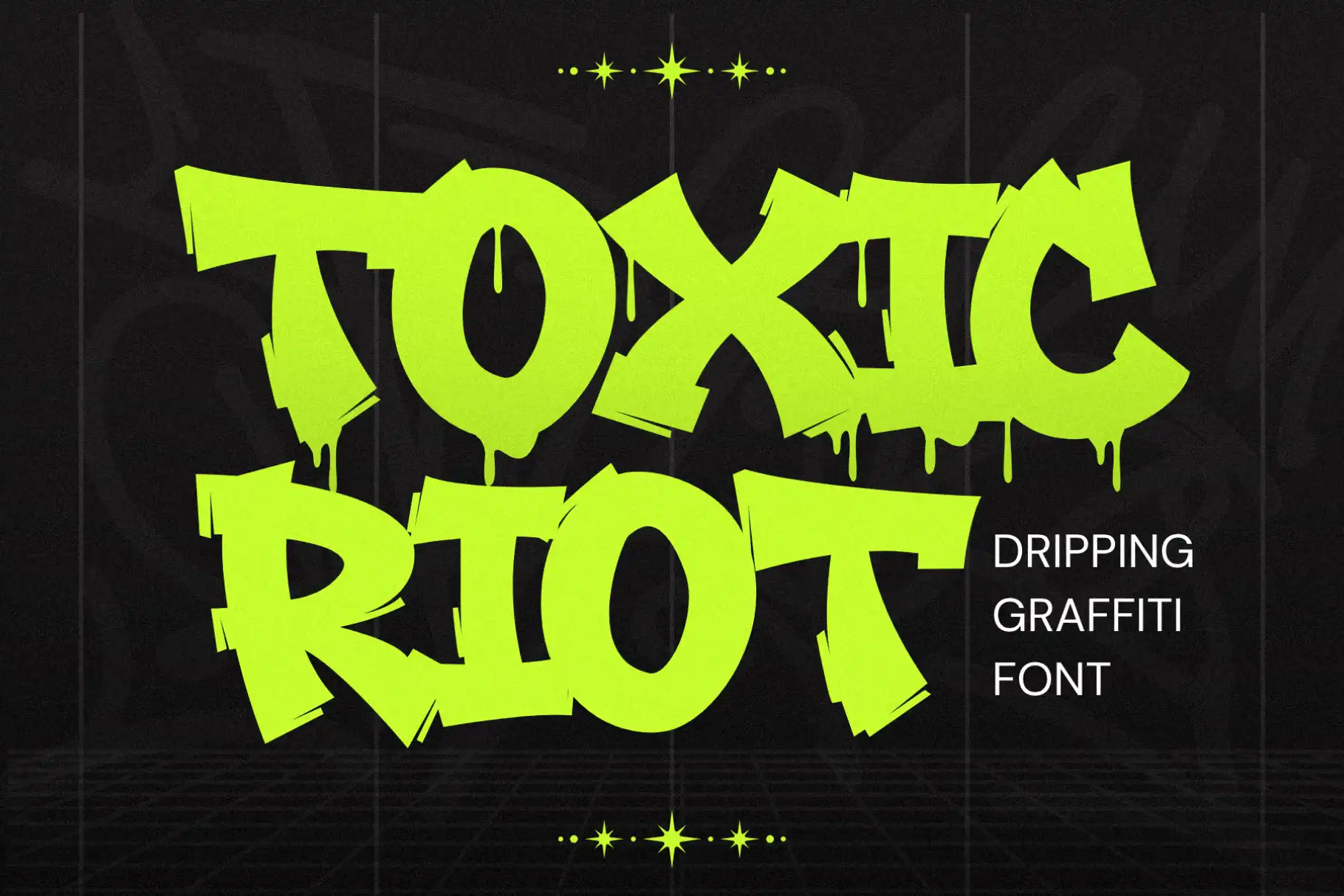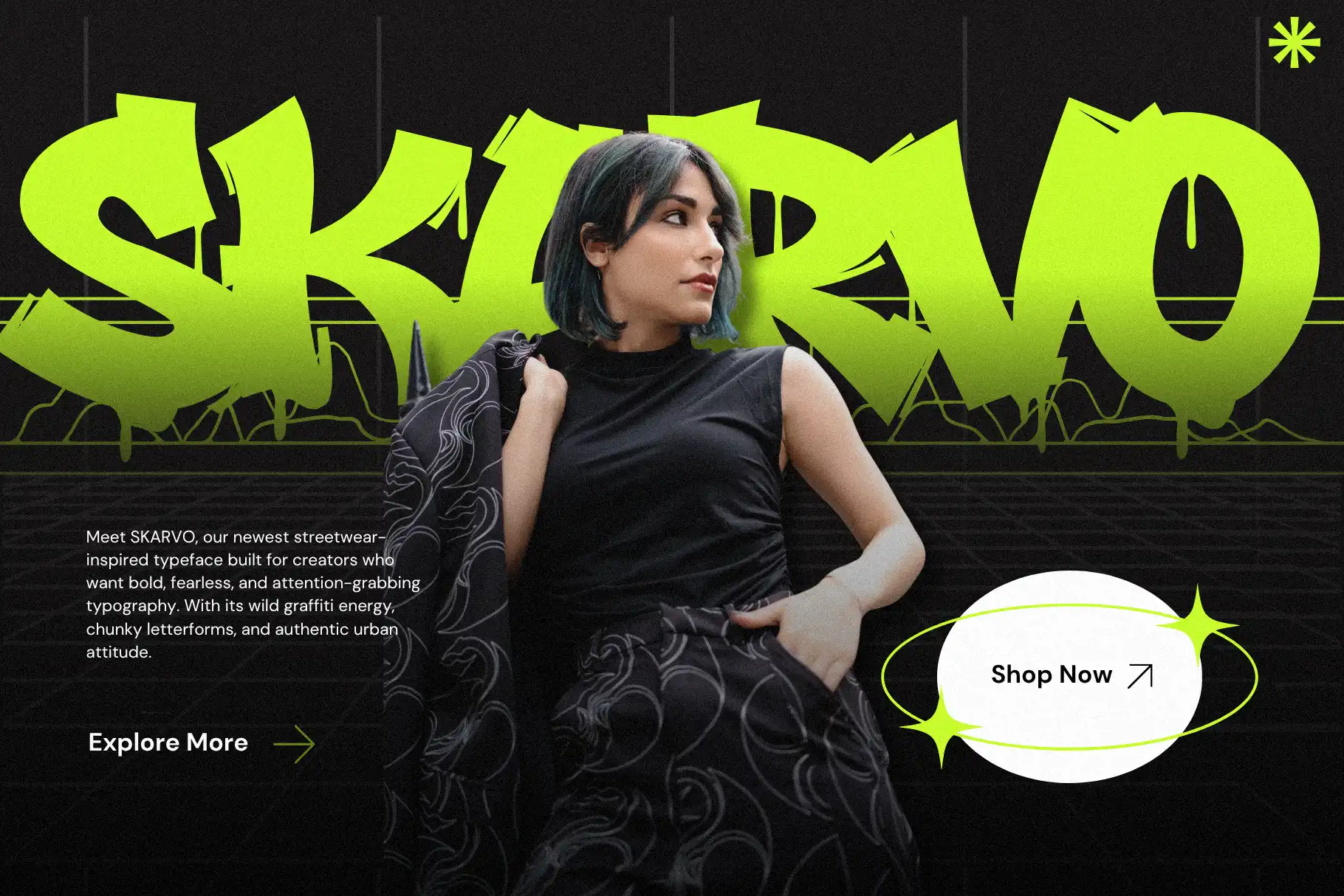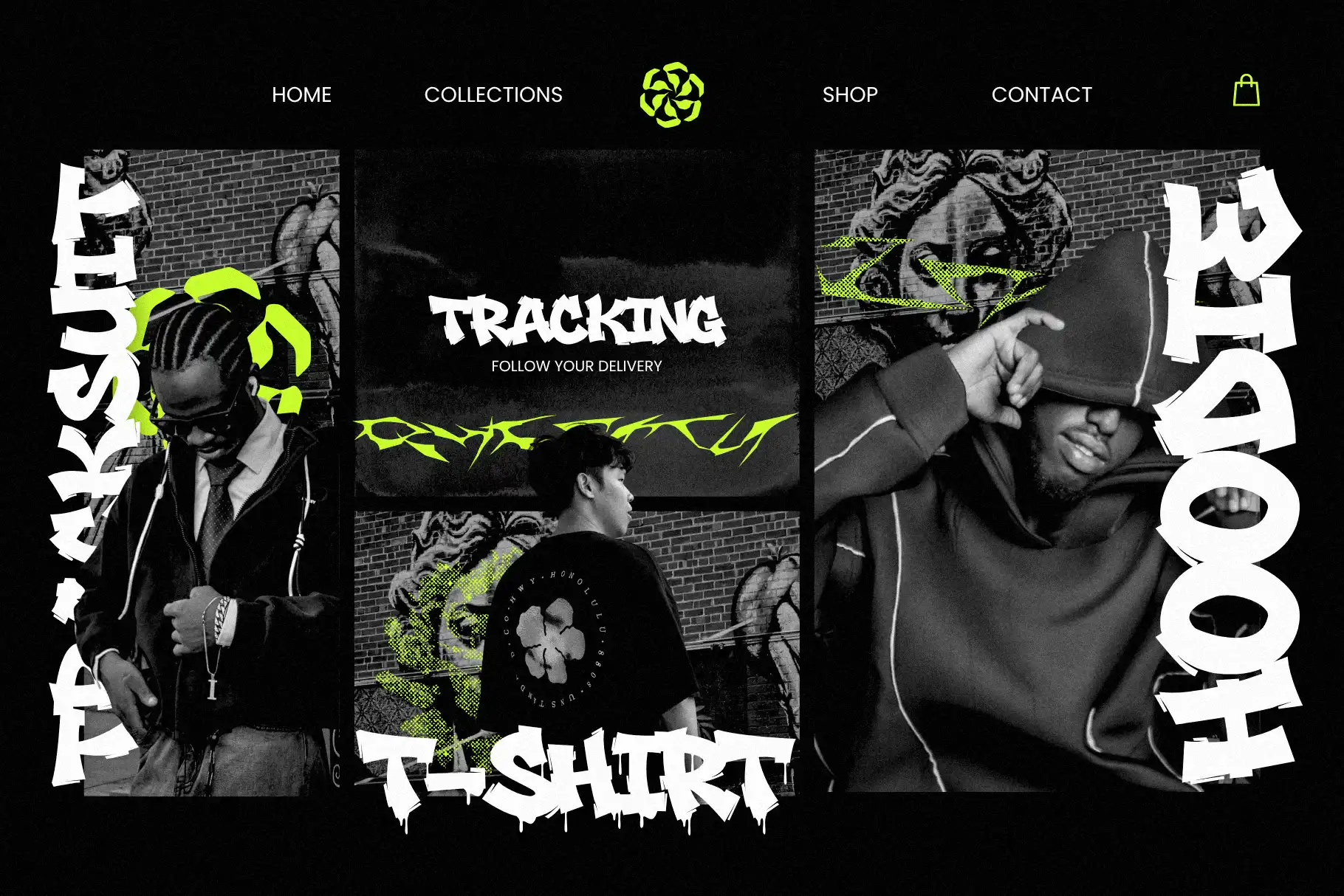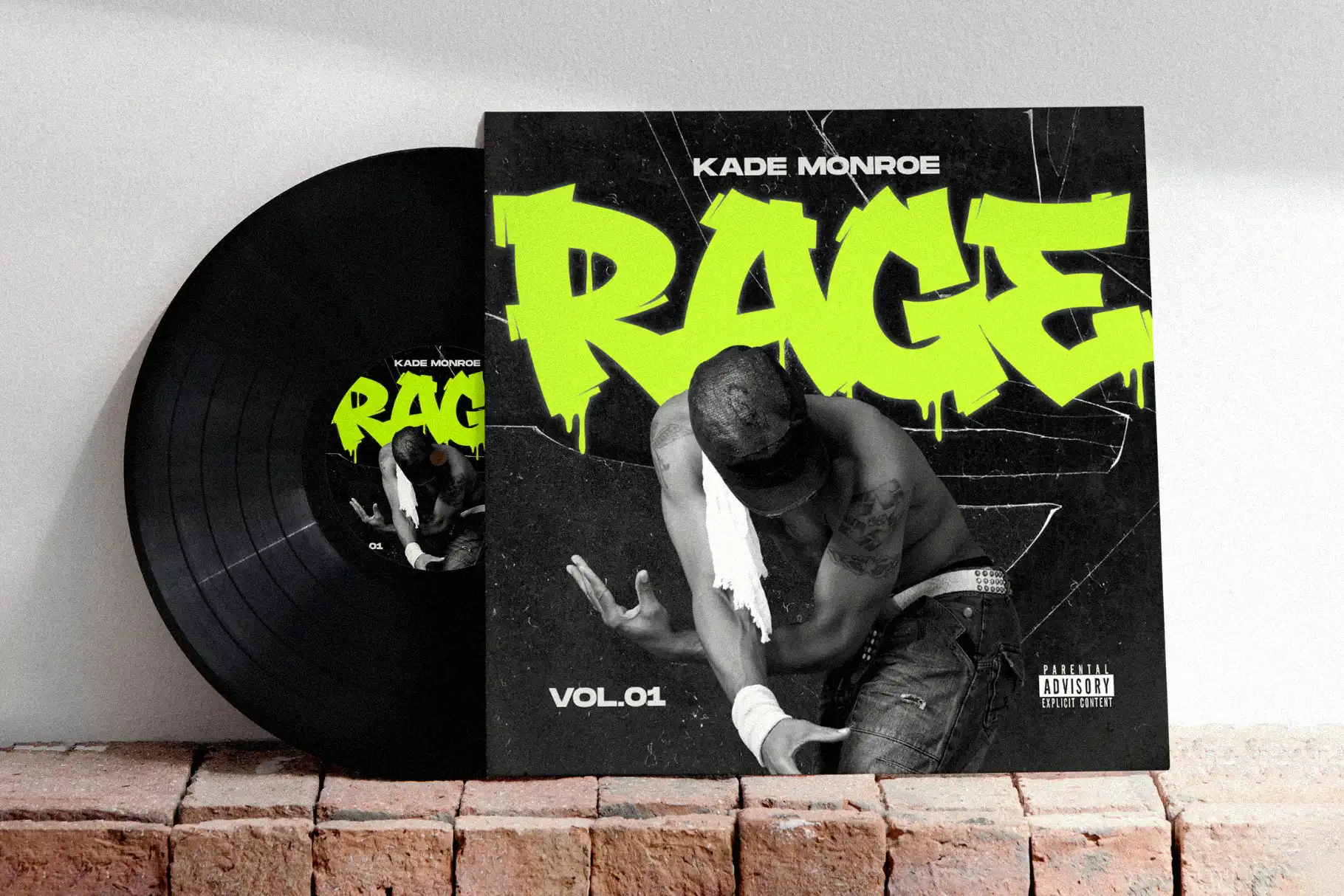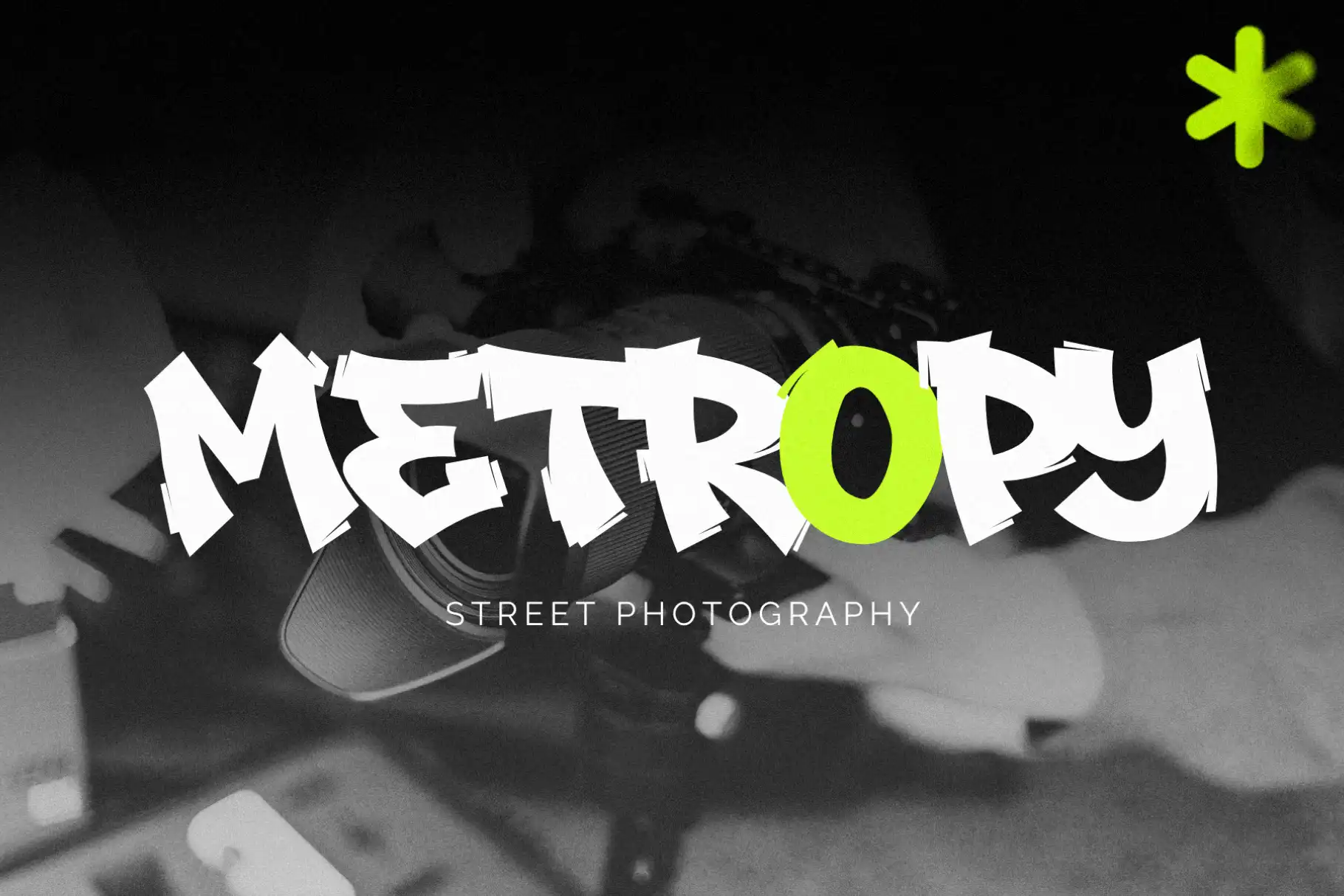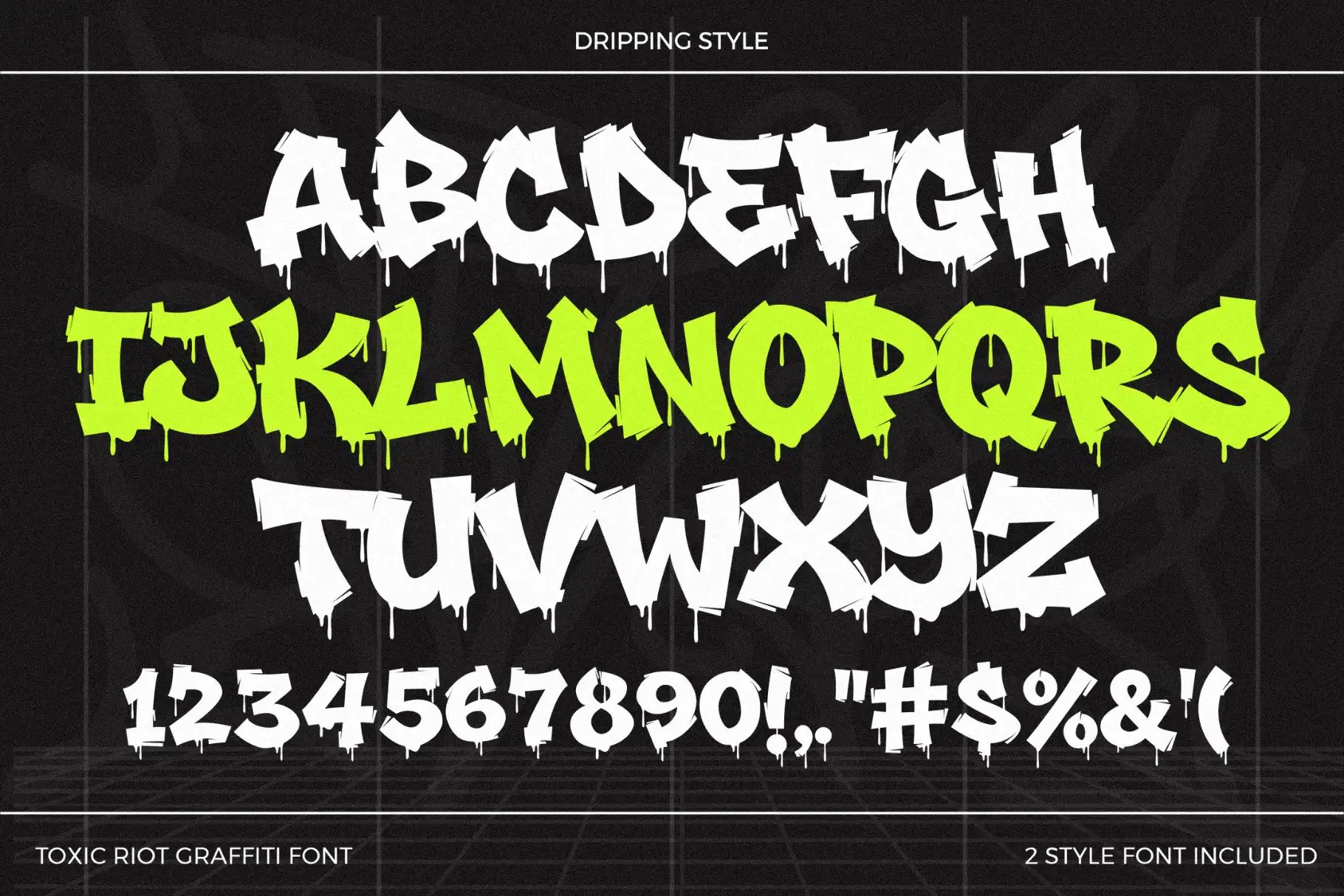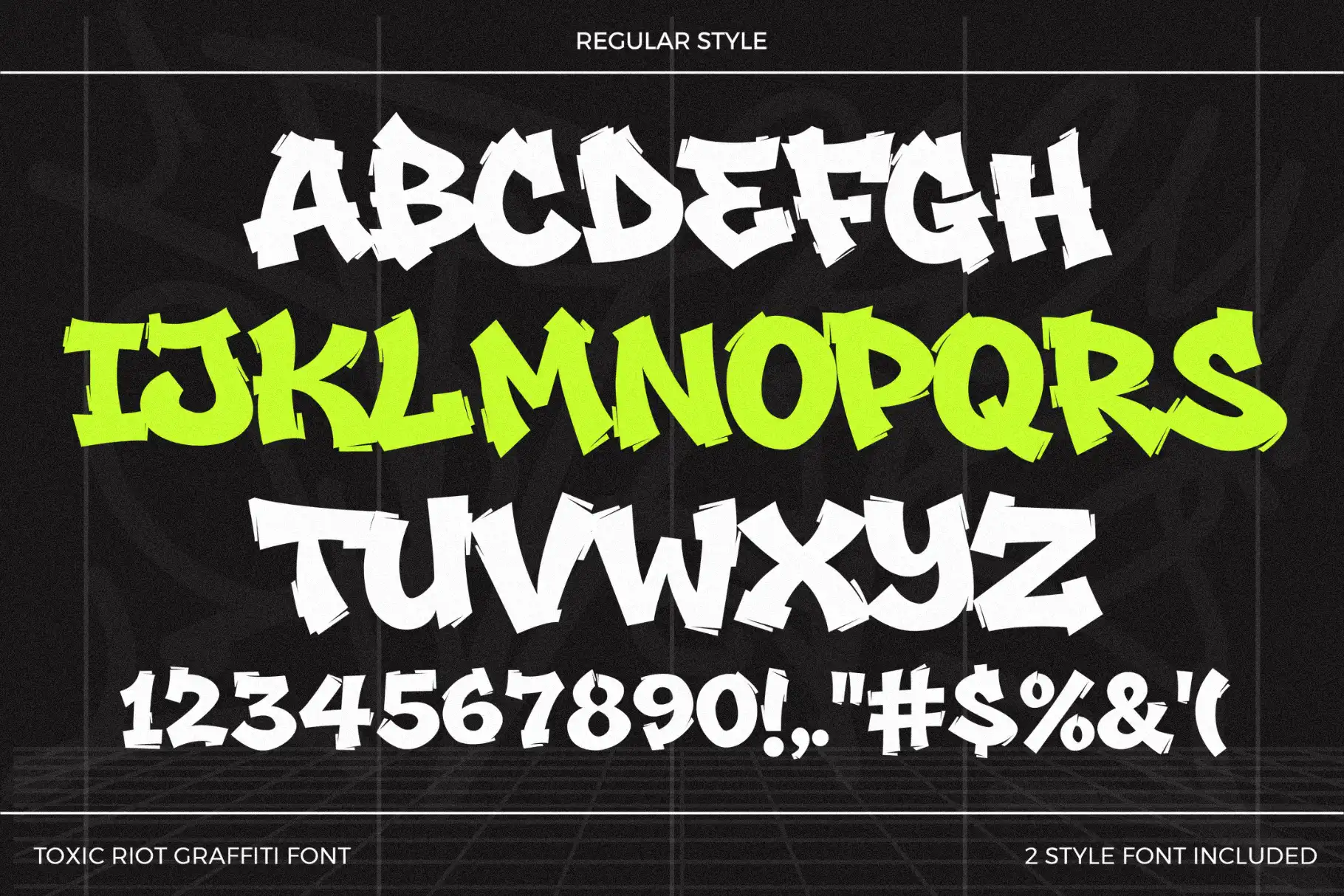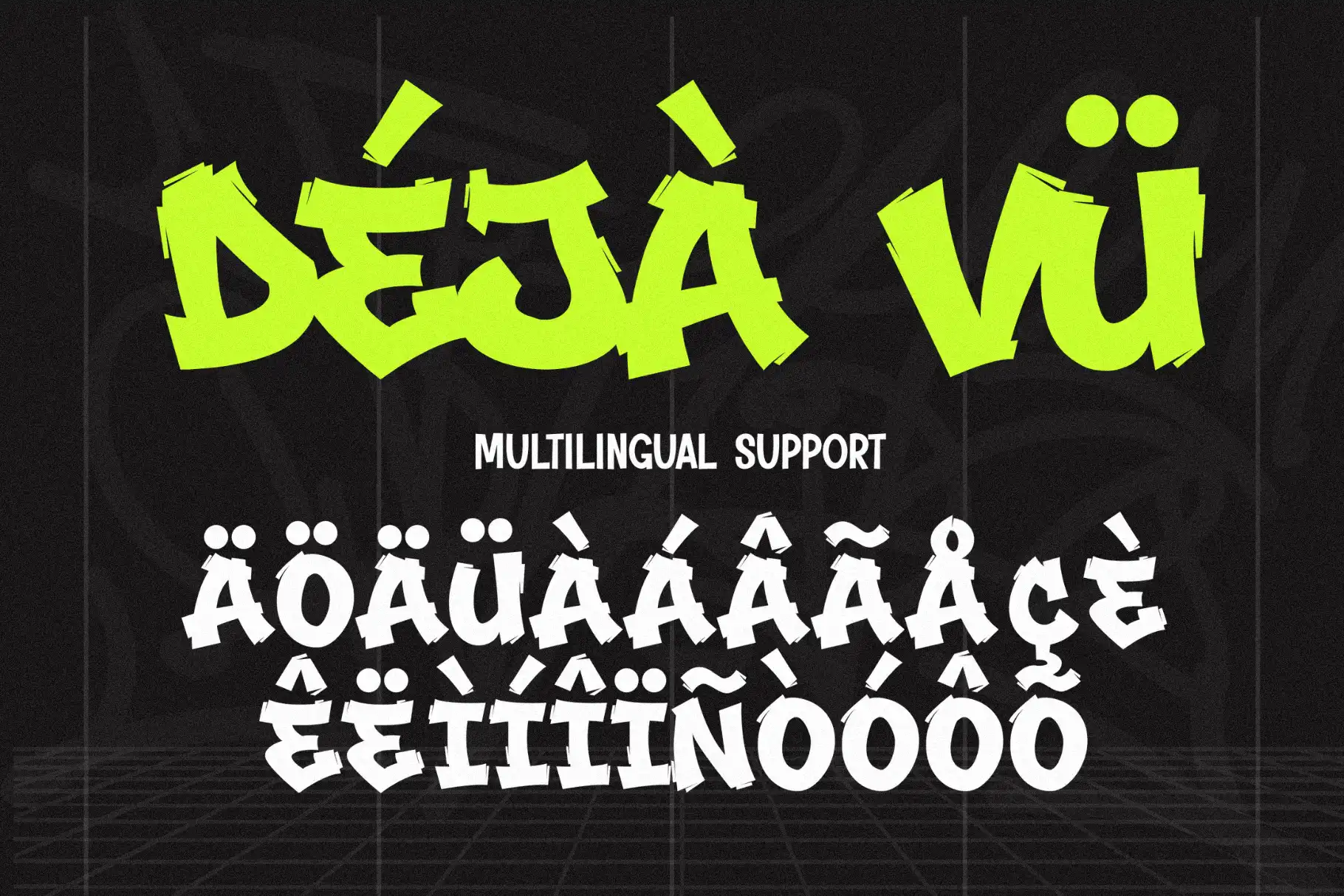
Toxic Riot Dripping Graffiti Font
Toxic Riot is a dripping graffiti font created for designers who need typography with raw movement, urban attitude, and immediate visual impact. Its all-caps structure gives every word a strong presence, while the dripping version introduces a more intense and expressive finish for artwork that should feel untamed.
The package contains two coordinated fonts: Toxic Riot and Toxic Riot Drip. Use the main version when you need a bold graffiti-inspired headline, then switch to the dripping style when the design calls for a darker, messier, or more dramatic appearance.
This font works especially well in display-focused projects where typography becomes the central graphic element. It can give a short title, brand name, slogan, or campaign message a recognizable street-art personality without requiring a complicated typographic setup.
Toxic Riot also includes numbers, punctuation, and multilingual support, giving designers more flexibility when building complete titles, promotional graphics, merchandise, and branded visual systems.
Toxic Riot draws its personality from graffiti lettering, dripping paint, underground graphics, and rebellious urban culture. The letterforms are designed to feel loud and expressive, making them suited to compositions that need more energy than a conventional display font can provide.
The standard Toxic Riot style can act as the core lettering treatment for logos, headlines, apparel graphics, and packaging titles. Toxic Riot Drip adds a flowing paint effect that can push the same message into a more dramatic creative direction.
That contrast gives you practical control over the final mood. The base version can support bold streetwear branding or modern graffiti layouts, while the dripping version can bring extra tension to horror promotions, music graphics, Halloween artwork, alternative fashion, and experimental posters.
Because the font is all caps, it naturally creates strong title shapes. Short phrases can feel compact and forceful, while larger words can become the main visual anchor of a poster, product graphic, or social media campaign.
Best Use Cases
Toxic Riot is designed for projects where the lettering needs to be noticed first. It is especially effective for large headlines, short statements, campaign names, and graphic compositions built around expressive typography.
Use it for streetwear collections, T-shirt graphics, hoodies, skate-inspired merchandise, album covers, music event posters, festival promotions, YouTube thumbnails, social media graphics, and independent brand identities.
The dripping style can also fit horror titles, Halloween promotions, thriller artwork, tattoo studio graphics, game titles, rebellious quote designs, underground event flyers, and alternative product packaging.
For digital product sellers, Toxic Riot can help create poster templates, printable wall art, apparel graphics, promotional bundles, and editable design assets. Brand owners can use it for limited-edition collections, bold campaign headlines, packaging accents, or social content that needs a stronger urban personality.
For the clearest visual result, use Toxic Riot as a display typeface rather than extended body copy. Pair it with a simpler supporting font for descriptions, product information, captions, or secondary messages.
Key Features
- All-caps letterforms
- Numbers included
- Punctuation included
- Multilingual support
- Two font versions: Toxic Riot and Toxic Riot Drip
The package gives you both the main graffiti style and its dripping companion in every listed format. This makes it easier to keep your typography consistent while choosing the version that best matches the mood of each project.
Toxic Riot gives designers two related visual directions inside one font package. Instead of relying on a single treatment for every layout, you can choose between the cleaner graffiti version and the more intense dripping version.
This flexibility is useful when creating a collection of connected designs. A clothing brand could use Toxic Riot for its primary logo or collection name, then introduce Toxic Riot Drip on campaign posters, statement T-shirts, stickers, or limited-edition graphics.
The all-caps design also helps simplify headline creation. You can quickly build bold title arrangements without managing uppercase and lowercase combinations. Numbers and punctuation make it possible to add dates, prices, edition numbers, event details, and short promotional statements while maintaining the same visual identity.
Choose Toxic Riot when your project needs more than a clean headline. Use it when the typography should feel painted, rebellious, energetic, and central to the entire creative direction.